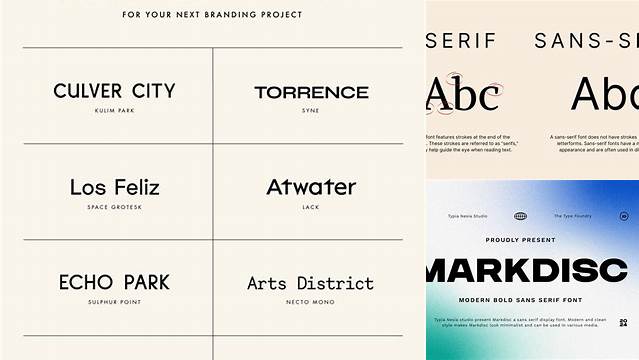
Bold Sans Serif Fonts: Easy Copy & Paste Guide
Hey guys! Ever found yourself staring at a design, a social media post, or even just a document, wishing you had the perfect bold sans serif font to make your text pop? You know, those strong, clear, and modern fonts that grab attention without being overly fussy? Well, you're in the right place! Today, we're diving deep into the world of bold sans serif fonts, and more importantly, how you can effortlessly copy and paste them to elevate your projects. Forget complicated installations or searching endlessly; we’re talking about quick, easy, and stylish solutions.
Why Go Bold with Sans Serif Fonts?
So, why all the fuss about bold sans serif fonts? It’s simple, really. Sans serif fonts, by definition, lack those little decorative strokes (serifs) at the ends of their letters, giving them a clean, modern, and minimalist look. When you add bold to the mix, you’re amplifying that impact. These fonts are incredibly versatile, working wonders across a spectrum of applications. Think impactful headlines that demand attention, clear and concise body text that’s easy to read even at smaller sizes, and branding that speaks of strength and sophistication. They’re the workhorses of the design world for a reason, guys. A bold sans serif isn’t just a font; it’s a statement. It communicates confidence, clarity, and a no-nonsense approach. Whether you’re designing a website, crafting a presentation, or creating a flyer, choosing a bold sans serif font ensures your message is delivered with power and readability. They stand out from the crowd, ensuring your content doesn’t get lost in the digital noise. Plus, the sheer variety available means you can find the perfect tone, from friendly and approachable to serious and authoritative, all within the bold sans serif category. It’s about making a visual impact that resonates with your audience and conveys your message effectively.
The Magic of Copy and Paste for Bold Sans Serif Fonts
Now, let’s get to the juicy part: copy and paste! The beauty of using online tools for bold sans serif fonts is that you often don’t need to download or install anything. Many websites offer generators where you can type your text, select a style (including bold sans serif), and then simply copy the stylized text to paste directly into your social media bio, website, or wherever else you need it. This bypasses the need for complex software or font management. It’s perfect for those quick updates or when you need a specific stylistic touch without the technical hassle. Imagine needing a super catchy Instagram bio or a bold title for a blog post; these generators are your secret weapon. They’re designed for immediate use, offering a vast library of stylistic variations at your fingertips. This method democratizes design, making cool typography accessible to everyone, regardless of their technical expertise. It’s about speed, convenience, and achieving a professional look with minimal effort. So, the next time you need a font that shouts (but in a good way!), remember the power of the copy-paste method for bold sans serif fonts. It’s the easiest way to add some serious typographic flair to your online presence and digital communications, ensuring your text is not only legible but also visually striking and memorable. The simplicity of it is truly revolutionary for quick content creation and personal branding online.
Popular Bold Sans Serif Font Families
When we talk about bold sans serif fonts, certain names just keep popping up. These are the reliable, stylish, and incredibly versatile fonts that have earned their place in the designer's toolkit. Think of families like Helvetica, Arial, and Roboto. Helvetica Neue Bold, for example, is the epitome of clean, objective design. Arial Black is its slightly more robust cousin, offering a strong, dependable presence. Then there's Roboto Bold, a modern sans serif designed for optimal legibility across digital screens, with a subtle geometric skeleton and friendly curves. Open Sans Bold is another fantastic, widely available option known for its excellent readability and approachable feel. Montserrat Bold brings a geometric flair, inspired by classic signage, offering a distinctive and contemporary vibe. These font families are not just single fonts; they are comprehensive collections with various weights, including many shades of bold. This consistency across a family makes them perfect for creating hierarchical text structures within your designs. You can use a lighter weight for body text and a heavier, bolder weight for headings, all while maintaining a cohesive visual identity. The popularity of these families stems from their adaptability; they look great in print, on the web, and in mobile applications. They are the go-to choices for brands that want to convey trustworthiness, clarity, and a modern aesthetic. Their widespread availability, often for free on platforms like Google Fonts, makes them even more appealing for designers and everyday users alike. Exploring these established families is a great starting point for anyone looking for dependable and stylish bold sans serif options that consistently deliver professional results.
Discovering Unique Bold Sans Serif Styles
While the classics are great, sometimes you need something with a bit more personality, right guys? The world of bold sans serif fonts extends far beyond Helvetica and Arial. There are countless independent foundries and designers creating unique takes on the bold sans serif. Think about fonts like Bebas Neue, a condensed, tall sans serif that packs a serious punch for headlines. Or perhaps Oswald Bold, a versatile, space-saving font that looks fantastic on screens. For something with a more geometric and distinctive feel, consider Poppins Bold or Lato Bold, both available on Google Fonts and offering a clean, modern, and friendly aesthetic. If you're looking for something a bit more editorial, Futura Bold is a timeless geometric sans serif that exudes sophistication. For a slightly more contemporary and friendly vibe, Quicksand Bold offers rounded terminals that make it super approachable. The key is to explore beyond the defaults. Websites like Google Fonts, Font Squirrel, and even Adobe Fonts (if you have a subscription) are treasure troves. Many online font generators also offer a wider array of stylistic choices that go beyond basic bolding. They might include variations like 'black', 'heavy', or 'extra bold', giving you even more options to make your text stand out. Don't be afraid to experiment! Trying out different bold sans serifs can unlock new creative possibilities and help your content achieve a truly unique look and feel. Remember, the goal is to find a font that not only looks good but also effectively communicates your message and brand identity. A unique bold sans serif can be the differentiating factor that makes your design memorable and impactful.
The Impact of Bold Sans Serif Fonts on Readability
When we talk about bold sans serif fonts, one of the most crucial aspects is readability. It might seem counterintuitive – doesn't bold make things harder to read? Well, it depends! In many contexts, a well-chosen bold sans serif enhances readability, especially for headlines, subheadings, and short bursts of important information. The increased weight creates a stronger visual contrast, making the text stand out from its surroundings. This is particularly important on digital screens where varying resolutions and lighting conditions can challenge legibility. Think about a busy webpage or a social media feed; a bold sans serif headline cuts through the clutter, guiding the reader's eye. However, using a bold weight for entire paragraphs of body text can indeed be fatiguing for the eyes. The letters lose some of their definition and can appear to bleed together, especially at smaller sizes. Therefore, the strategic use of bold sans serif fonts is key. They are your best friends for titles, calls to action, and highlighting key phrases within a larger block of text. The clean lines of sans serif fonts generally contribute to good readability in the first place, and the added weight of 'bold' simply amplifies this clarity for specific purposes. When selecting a bold sans serif, consider its x-height (the height of lowercase letters like 'x') and the spacing between letters (kerning). Fonts with generous x-heights and good kerning tend to be more legible in bold form. So, guys, use bold sans serifs wisely – they’re powerful tools for emphasis and guiding your reader, but don’t overuse them for lengthy content.
####### Mastering Bold Sans Serif for Web Design
Web design is a realm where bold sans serif fonts truly shine. Their clean, modern aesthetic translates beautifully to the screen, offering clarity and a contemporary feel that users expect. When incorporating bold sans serifs into your website, think about hierarchy. Use a bold sans serif for your main headings (H1, H2) to immediately grab attention and clearly structure your content. For subheadings (H3, H4), a slightly less bold weight or a different bold sans serif can create visual distinction. Body text, as we discussed, is often best left in a regular or medium weight, but you might use bold sans serif sparingly to highlight key terms or phrases. The copy-paste method is particularly useful here for elements like website taglines, navigation menu items, or short descriptive texts in image alt tags, especially if you're working within a platform that doesn't offer extensive font controls. Tools like Google Fonts offer a vast selection of free, web-safe bold sans serifs that are optimized for performance. Popular choices for web include Lato Bold, Open Sans Bold, and Montserrat Bold due to their excellent readability and versatility. When choosing, always test how the font looks on different screen sizes (desktops, tablets, mobiles) and in various browsers. Ensure sufficient contrast between the text color and background color to maintain readability. Remember, a well-chosen bold sans serif can significantly enhance user experience by making navigation intuitive and content engaging. They contribute to a clean, professional, and accessible design that keeps visitors on your site longer. It’s all about making information easy to find and digest, and bold sans serifs are perfect allies in this digital endeavor, guys.
######## Bold Sans Serif for Social Media Graphics
Let's talk social media, guys! If you're creating graphics for Instagram, Facebook, Twitter, or any other platform, bold sans serif fonts are your secret weapon for making your visuals pop. Think about those eye-catching quote graphics, promotional banners, or event announcements. A strong, bold sans serif font can make your text instantly legible, even when users are scrolling quickly through their feeds. The key here is impact and clarity. You want your message to be understood in seconds. Copy-pasting stylized text from online generators is perfect for social media bios, captions, or even temporary text overlays on images or videos. It’s a quick way to add personality and emphasis without needing graphic design software. Consider fonts like Impact (though a bit dated, it's undeniably bold!), Bebas Neue, Oswald, or Montserrat Bold for that strong, condensed, or modern look. For Instagram stories, a bold sans serif can make your text stand out against a photo or video background. For Facebook ads or Pinterest pins, using bold sans serifs for headlines and key selling points can significantly boost engagement. Remember to keep it readable – while bold is great, ensure it contrasts well with your background image or color. White text on a dark background, or dark text on a light background, works best. Experiment with different weights within a bold family (e.g., SemiBold vs. ExtraBold) to create subtle visual interest. Ultimately, bold sans serifs help your social media content cut through the noise and deliver your message effectively, making your posts more shareable and memorable.
######### The Versatility of Bold Fonts in Branding
Branding is all about making a memorable impression, and bold sans serif fonts are incredibly powerful tools in a brand's arsenal. Think about major brands – many rely on strong, clean sans serif typefaces to convey modernity, trustworthiness, and clarity. A bold sans serif can define a brand's personality, whether it's the robust and dependable feel of a bank, the sleek and innovative look of a tech company, or the straightforward and honest approach of a lifestyle brand. Using a bold weight consistently across all brand touchpoints – from logos and websites to marketing materials and packaging – creates a strong, unified visual identity. This consistency helps build recognition and trust with the audience. For instance, a brand might use a specific bold sans serif for its primary logo and headlines, and a lighter weight of the same family for body copy. This creates a cohesive look while maintaining readability. The copy-paste functionality, while useful for smaller, ad-hoc applications, is less relevant for primary brand assets which require proper font installation. However, understanding the impact of bold sans serifs is crucial even when using design software. It’s about choosing a typeface that accurately reflects the brand’s values and intended perception. A bold sans serif communicates strength, confidence, and directness. It says, 'We are here, and this is what we stand for.' This makes it ideal for brands aiming to be seen as leaders in their field. The simplicity and clarity of the sans serif form ensure the message is never obscured, allowing the brand's core values to shine through without distraction, guys.
########## Bold Sans Serif for Print vs. Digital Media
While bold sans serif fonts are incredibly versatile, their application can subtly differ between print and digital media. In print, especially with high-resolution printing, bold sans serifs offer crispness and impact. They are excellent for headlines in magazines, newspapers, brochures, and posters where they need to command attention on a physical page. The tactile nature of print means the weight and form of the font are perceived slightly differently. A bold sans serif can feel very grounded and substantial on paper. For body text in print, however, even bold can sometimes be too heavy if the paper quality is poor or the ink spreads (bleeds). In digital media, like websites and apps, bold sans serifs are crucial for on-screen readability and visual hierarchy. They help break up text, guide the user's eye, and ensure key information stands out on screens that vary greatly in size and resolution. The copy-paste method is particularly prevalent in digital contexts for quick text styling. When designing for digital, it's vital to consider how a bold sans serif will render across different browsers and devices. Some fonts might appear slightly different or bolder on screen than in print previews. Web-safe fonts or those optimized for screen use (like Google Fonts) are generally recommended for digital projects. Regardless of the medium, the core principle remains: bold sans serifs are best used for emphasis and headlines, ensuring your message is clear, strong, and easy to digest. Understanding these nuances helps you make the best typographic choices for your specific project, guys.
########### Choosing the Right Bold Sans Serif for Your Project
Okay, so you're convinced you need a bold sans serif font, but which one? With so many options, it can feel overwhelming. The first step is to consider the purpose and tone of your project. Are you creating a playful invitation? A serious business proposal? A cutting-edge tech blog? The context is key. For a modern, clean, and professional look, versatile options like Montserrat Bold, Lato Bold, or Open Sans Bold are fantastic starting points. They are widely available and highly readable. If you need something tall and impactful for headlines, Bebas Neue or Oswald Bold are excellent choices. For a slightly more geometric and stylish feel, Futura Bold (if accessible) or Poppins Bold could be perfect. Don't just pick the first bold font you see! Look at the details: the letterforms, the spacing, the overall personality. Does it feel too harsh? Too friendly? Too generic? Experiment! Use online font pairings tools to see how your chosen bold sans serif works with other fonts. If you're using copy-paste generators, try out a few different styles offered to see which one best captures the essence of your message. Most importantly, test your chosen font in its intended environment. View it on the device it will be displayed on, or print a sample if it's for print. What looks good on a giant monitor might be unreadable on a small phone screen. Choosing the right bold sans serif is about balancing aesthetics, readability, and the specific needs of your project. It’s a crucial decision that can make or break your design, so take your time and explore the possibilities, guys.
############ The Psychology Behind Bold Typography
Ever wonder why certain fonts just feel a certain way? There's a whole psychology behind typography, and bold sans serif fonts have a distinct psychological impact. Bold weights inherently convey strength, power, and importance. They signal to the viewer that this information is significant and should not be overlooked. Sans serifs, with their clean and modern appearance, often evoke feelings of efficiency, clarity, and forward-thinking. Combine these two, and you get a font that feels authoritative, direct, and contemporary. This is why bold sans serifs are frequently used in headlines, calls to action, and branding for companies that want to project an image of leadership and reliability. They create a sense of urgency and directness, encouraging action or drawing immediate attention. Think about a